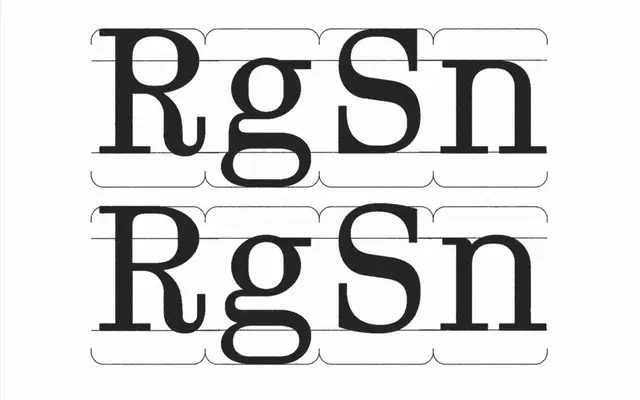
Aether Mono
DDOTT · Dominik Thieme · 2024
A geometric monospaced family in two stylistic variants, derived from Linn Boyd Benton's 1883 self-spacing type system, with a cadence-unit structure that keeps stem intervals consistent within and between letters.
Designed by Dominik Thieme and released in 2024, the family splits into Aether A Mono, which retains dark, unmodified brackets and joints, and Aether B Mono, which applies optical corrections for improved legibility. Both variants share 1074 glyphs, 28 OpenType features, swash alternates, and an extensive ligature set designed to harmonise spacing within monospaced columns. The parametric logic behind the spacing makes it well suited to scientific, mathematical and technical typesetting.
A fixed-width typeface built on a cadence-unit system ensuring consistent stem intervals, with geometric letterforms derived from predetermined character width logic inspired by 19th-century self-spacing type systems.